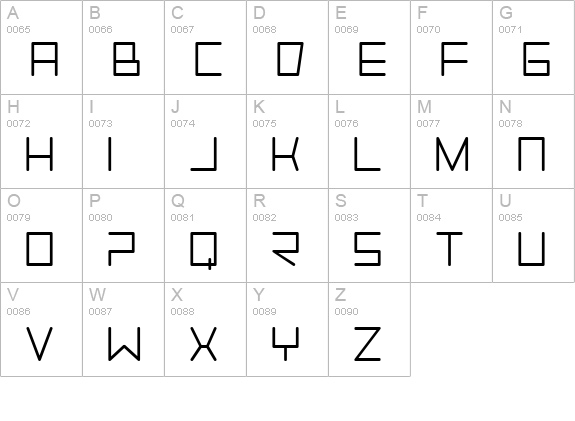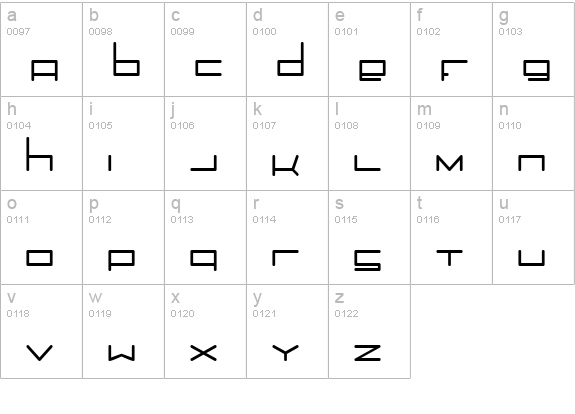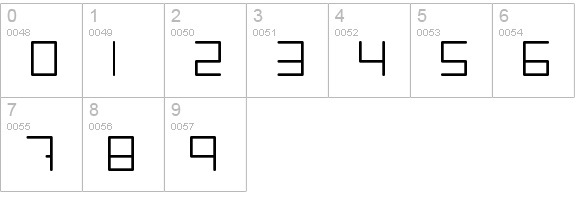
Trancemission Medium Font Details
Trancemission Medium is a balanced, medium-weight variant in the Trancemission typeface family \xE2\x80\x94 well suited to sub-headlines, navigation, and balanced editorial work.
Trancemission Medium is a bold and captivating font that effortlessly combines modernity with a touch of avant-garde. Its sleek and stylish design is perfect for projects needing a contemporary edge, while still maintaining a sense of elegance and sophistication. This versatile typeface boasts clean lines and sharp angles, making it ideal for eye-catching headlines, stylish logos, and impactful branding. Its medium weight strikes the perfect balance between boldness and readability, ensuring that your message is conveyed with clarity and impact. Trancemission Medium is not only visually stunning but also highly functional. Its carefully crafted letterforms ensure legibility across various mediums, from print to digital. Whether it's a magazine spread, a website header, or a social media post, this font will make a lasting impression. What makes Trancemission Medium even more enticing is that it is available as a free download at FontsMarket.com. Yes, you read that right – this remarkable font is just a click away, ready to elevate your design projects without costing you a penny. FontsMarket.com is a trusted source for high-quality fonts, and with Trancemission Medium being freely available, there's no reason not to give it a try. So, if you're seeking a font that exudes modernity, sophistication, and versatility, look no further than Trancemission Medium. Download it for free at FontsMarket.com and unlock a world of design possibilities.